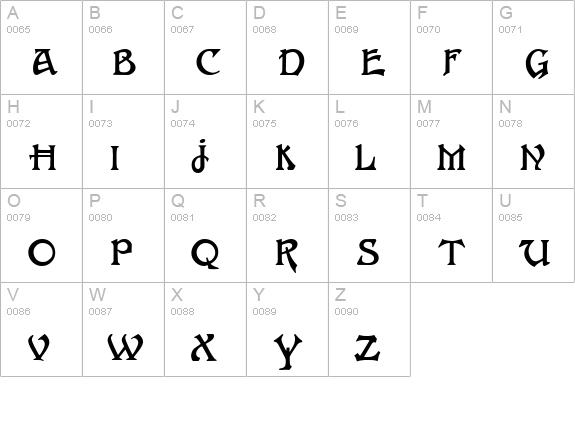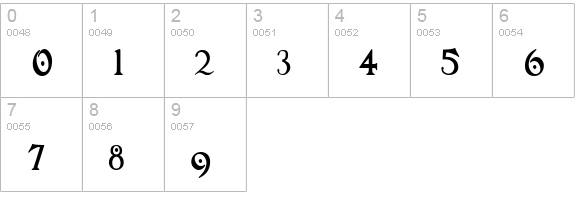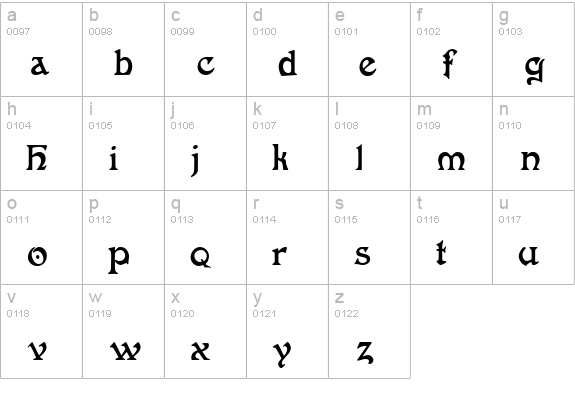
FantaisieArtistique Font Details
FantaisieArtistique is a beautifully crafted font that exudes an artistic and whimsical charm. With its elegant and flowing lines, this font is perfect for adding a touch of creativity to your projects. Whether you're designing invitations, greeting cards, or branding materials, FantaisieArtistique will surely make your text stand out. What makes FantaisieArtistique even more appealing is that it is available for free download at FontsMarket.com. This means you can easily access this unique font and use it in your personal or commercial projects without any cost. So go ahead and give your designs a touch of artistic flair with FantaisieArtistique font today!